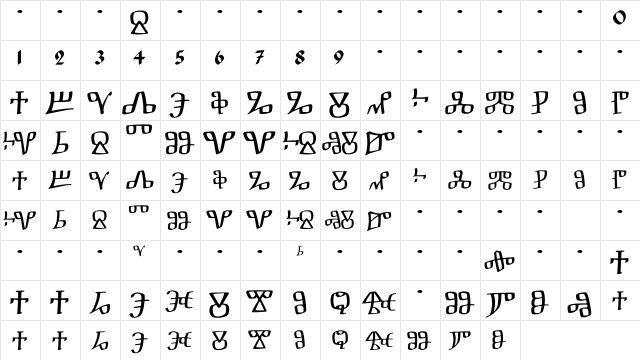
Hlaholice Bold
Design Context for Hlaholice Typeface
Hlaholice is a composed and adaptable typeface that performs quietly and consistently across a wide range of design contexts. Its bold stroke weight gives it real presence on the page.